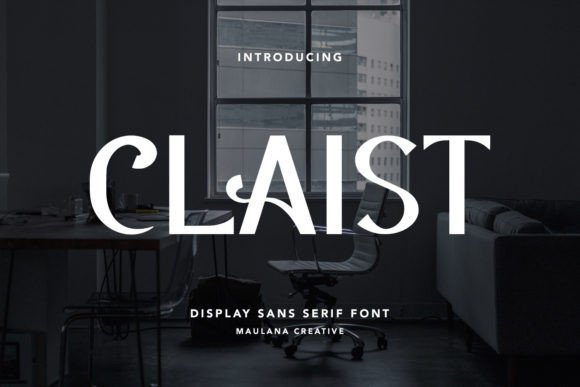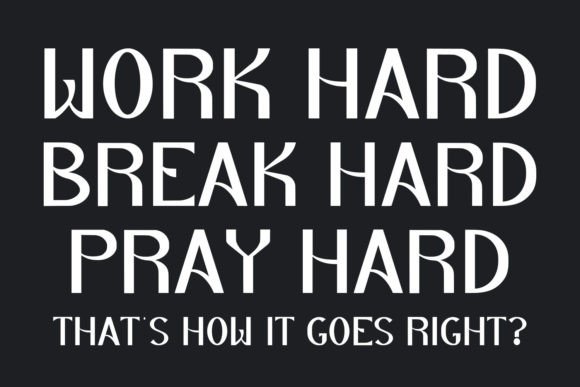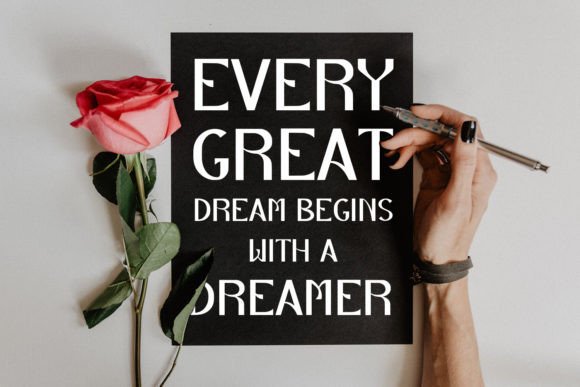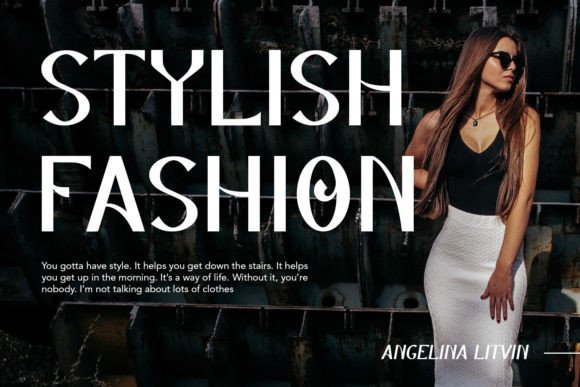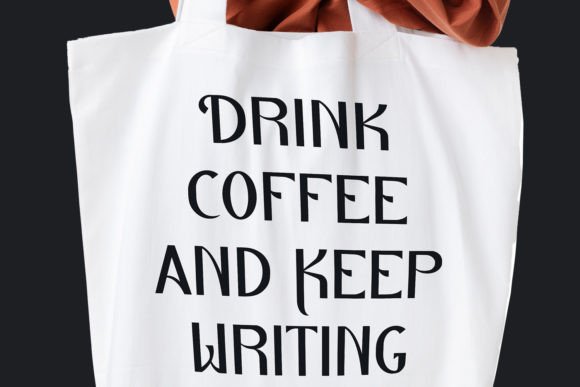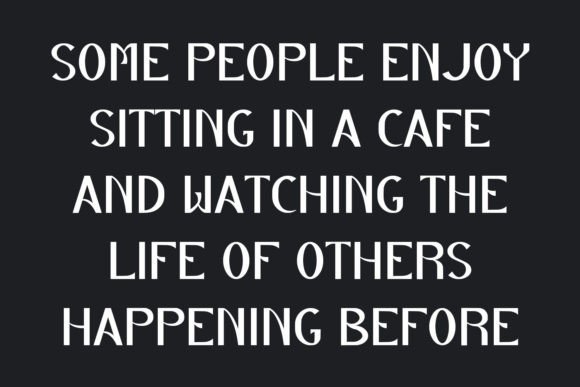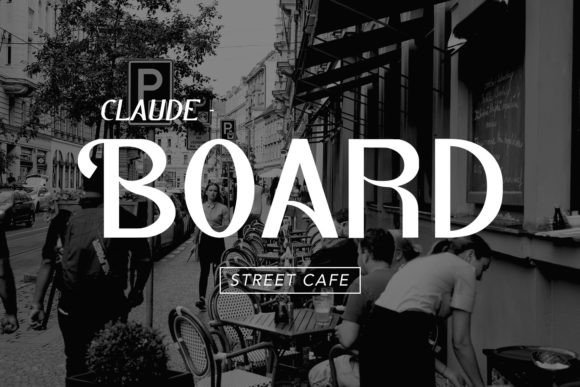
The Perfect Blend of Style and Timelessness: Claist Font
Have you ever been on the hunt for the perfect font to elevate your design to the next level? You know, that moment when you stumble upon a font that makes you feel like you’ve hit the jackpot? That’s exactly what happens when you discover the Claist Font. Its bold lines and intricate details make it the ultimate choice for high-end branding, packaging, and editorial design.
Claist Font is a masterful blend of modern design elements and classic sensibilities, resulting in a font that is both stylish and timeless. With its versatility, it’s no wonder that designers are clamoring to get their hands on this gem. And the best part? The Claist Font is PUA encoded, making it easy to access all the delightful glyphs and swashes that will take your designs to new heights.
Claist Font Key Features
- Font Family: Claist is a sans-serif font family designed for digital use.
- Unique Characteristics: Claist features a modern and clean design, with a focus on legibility and readability in digital environments.
Claist Font Review
Overall, I think Claist Font is a decent choice for designers looking for a sans-serif font with a touch of elegance. ✨ One of the things I like about Claist Font is its versatility – it works well in both body text and headings, making it a great all-around choice. ✨ The font also has a nice balance of modern and classic elements, which can help to create a sense of sophistication in your designs.
Another thing that I appreciate about Claist Font is its legibility – the font is clear and easy to read, even at smaller sizes. ✨ This makes it a great choice for websites and other digital applications where text is displayed on a variety of devices and screen sizes.
One of the things that I dislike about Claist Font is its limited language support. ⚠️ While it includes a wide range of Latin-based languages, it may not be suitable for designers working with non-Latin scripts. ⚠️ Additionally, the font may not be as suitable for designs that require a lot of bold or italic text, as the bold and italic weights can look a bit inconsistent.
Overall, I would give Claist Font 3.5 out of 5 stars. It’s a solid choice for designers who want a clean and elegant sans-serif font, but it may not be the best choice for designers working with non-Latin scripts or requiring a lot of bold or italic text.
Tips for Getting the Most Out of Claist Font
Use Claist Font for headings and titles to create a visually striking effect. Experiment with different font sizes and combinations with other fonts to achieve a unique look. Use Claist Font in conjunction with other design elements, such as graphics and images, to create a cohesive and engaging design.
Claist Font is suitable for a wide range of applications, including:
- Business and marketing materials
- Print design and publishing
- Graphic design and visual communications